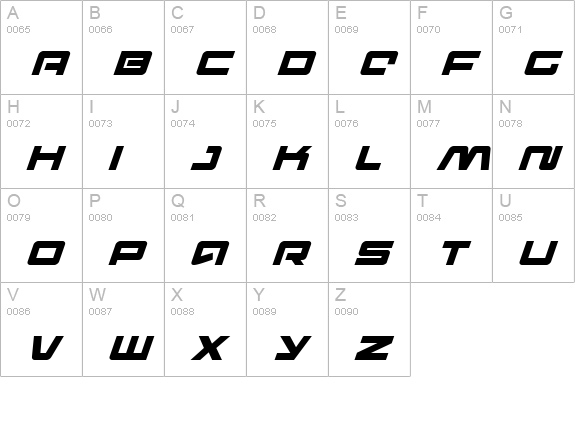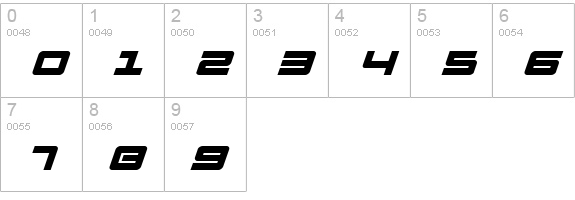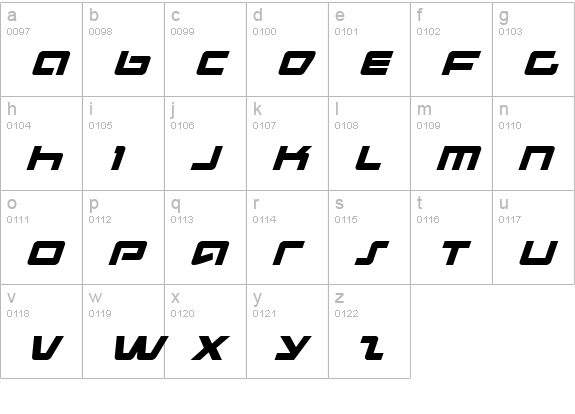
Pulse Rifle Italic is a distinctive, italic variant in the Pulse typeface family \xE2\x80\x94 well suited to design and typography projects.
The Pulse Rifle font is a sleek and modern typeface that exudes a sense of energy and forward movement. Its sharp angles and dynamic lines give it a futuristic and high-tech look, perfect for projects that require a cutting-edge aesthetic. With its italic style, Pulse Rifle adds a sense of flair and sophistication to any design. This versatile font is perfect for a wide range of applications, from branding and advertising to digital art and web design. Its bold and impactful appearance makes it ideal for headlines, titles, and other prominent text elements. The Pulse Rifle font is sure to make your work stand out and capture the attention of your audience. Best of all, the Pulse Rifle font is freely available to download at FontsMarket.com. Now you can add this striking typeface to your collection without breaking the bank. Don't miss out on the opportunity to elevate your designs with the Pulse Rifle font today!